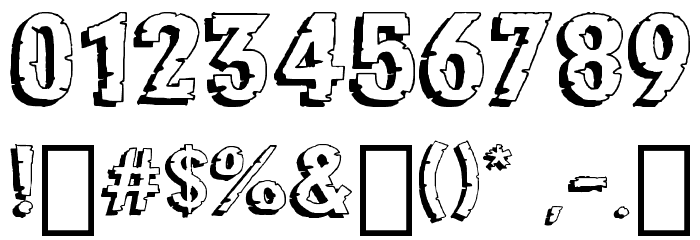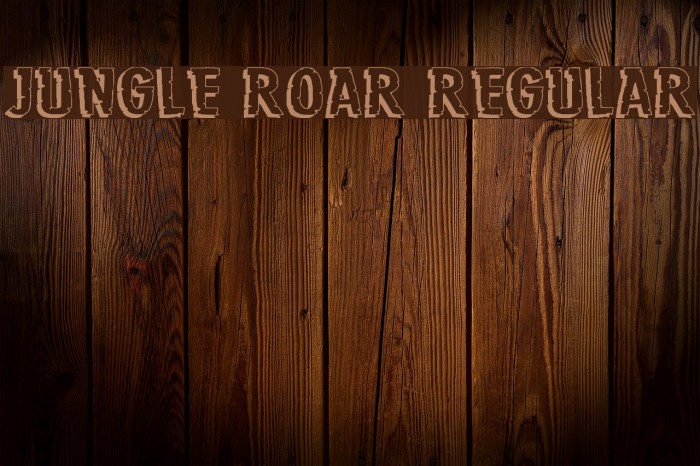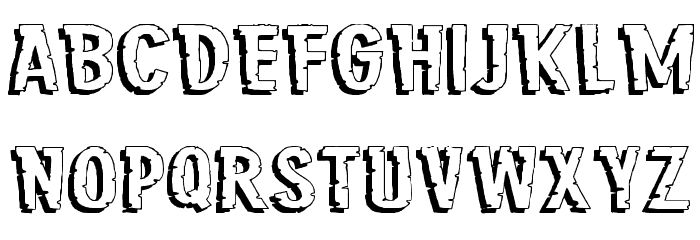
Jungle Roar Regular Font
This font features a bold, rugged style with a distressed, textured appearance that mimics the look of hand-carved wood or stone. The letters are uppercase and lowercase, with numbers and a variety of special characters. Each character has a shadow effect, adding depth and a three-dimensional feel. The font's design is reminiscent of adventure and exploration, making it ideal for projects that require a bold and dynamic look. The irregular edges and rough texture give it a unique, organic feel that stands out in any design.
A bold, textured font with a rugged, adventurous style.
• Proposed Projects: Ideal for adventure-themed posters, outdoor event branding, video game titles, and merchandise design.
• Category: Decorative/Display
• Bold: Yes
• Italic: No
• Weight: Bold
• Width: Normal
• Character Spacing: Normal
• Contrast: High
• Overall Style: Decorative
• Use Case: Headlines, Logos